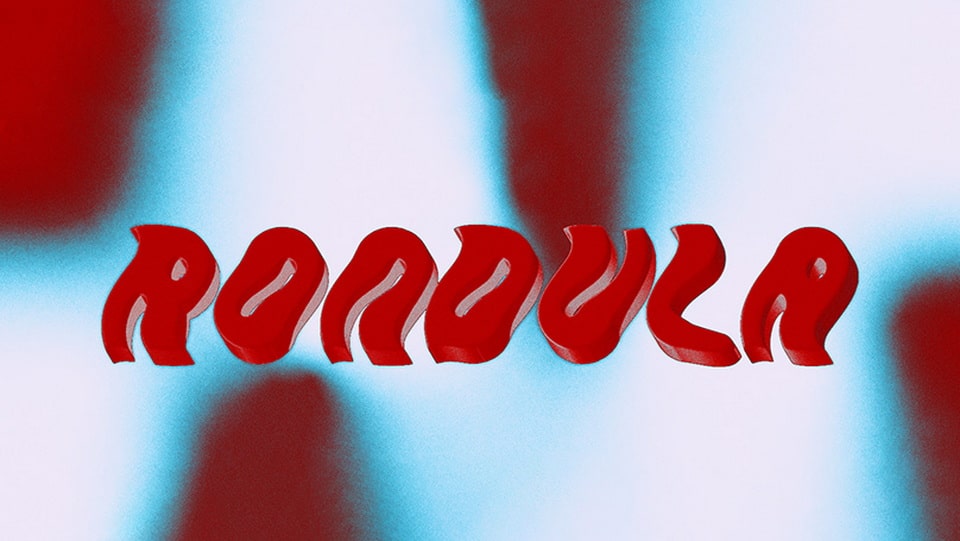
Download Rondula font, a sans serif typeface, inspired by Bahaus shapes and some inspirations from the art deco movement. Rondula font has only uppercase, lowercase, numerals and common punctuation.
Designer: BasTos AGRT